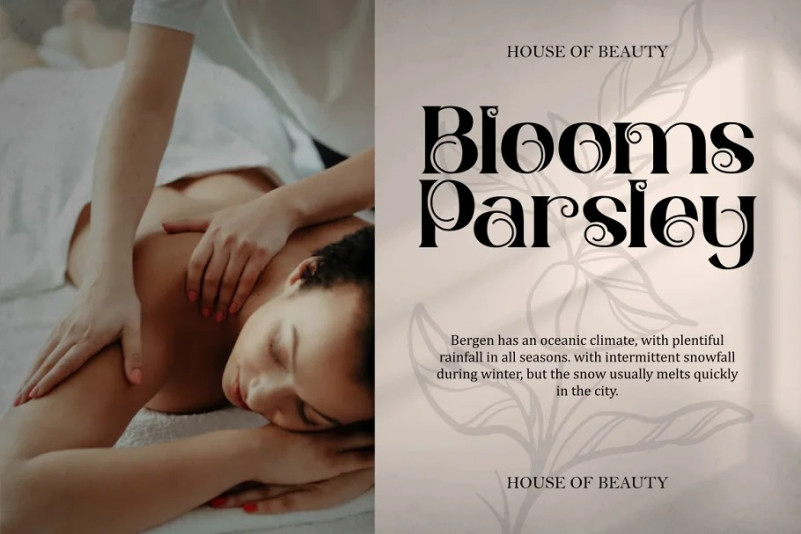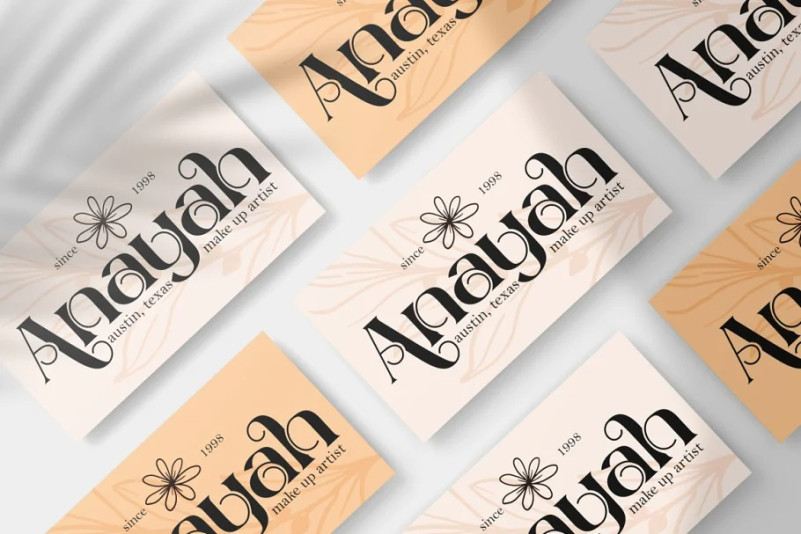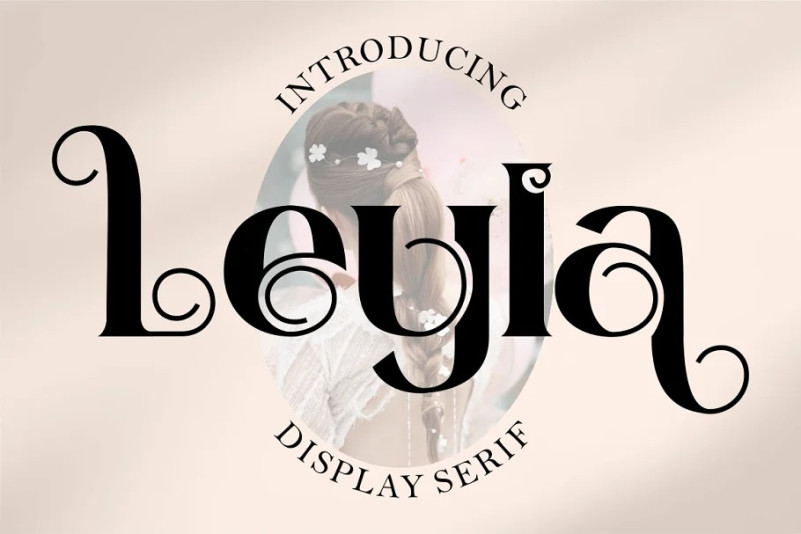
Layla Font
Layla Display Font. Inspired from luxury serif from the display cover and we combine with elegant typeface style. With a total of 534 glyphs with 359 alternate, you can make great display combinations for lettering with a lot of options. Come with open type feature ( a lot of alternates and end swash), its help you to make great lettering. Layla font is also support multi language. Layla best uses for Logotype, heading,cover, poster, logos, quotes, product packaging, header, merchandise, social media & greeting cards and many more.